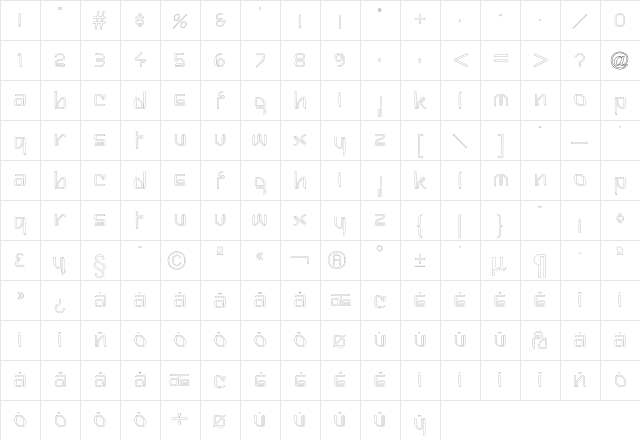
Hairpin Hairline
Hairpin is a composed and adaptable typeface that performs quietly and consistently across a wide range of design contexts. The delicate stroke weight brings airiness and refinement to layouts.